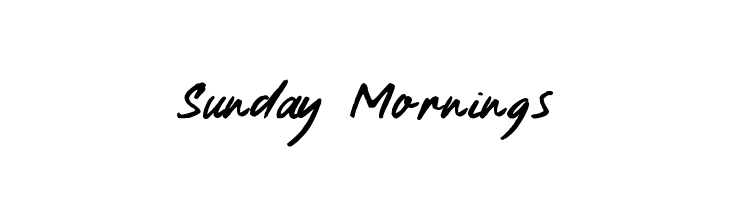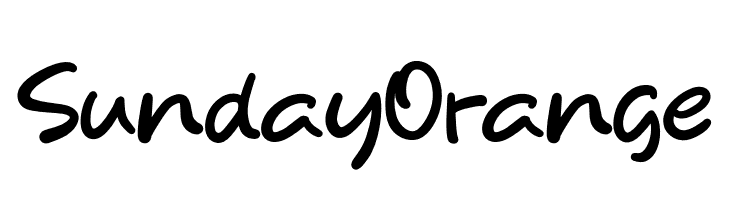
A casual, handwritten font with a smooth, flowing style.
A flowing, cursive handwritten font with smooth, continuous strokes.
A playful, casual handwritten font with smooth, flowing curves.
A playful, hand-drawn font with a whimsical, outlined style.
A bold, modern sans-serif font with clean lines and geometric structure.
A playful, handwritten font with a casual and friendly appearance.
( Fonts by Agam Rahmadan )
A playful, hand-drawn font with rounded, bold characters.
An elegant script font with decorative swirls and artistic flair.
( Fonts by Gilang Ternadho )
A playful, hand-drawn font with a casual and friendly vibe.
A bold, expressive script font with dynamic, flowing letterforms.